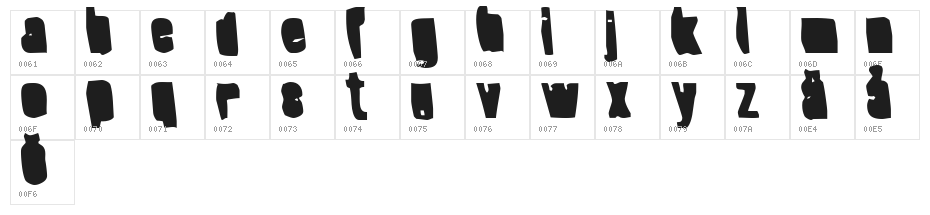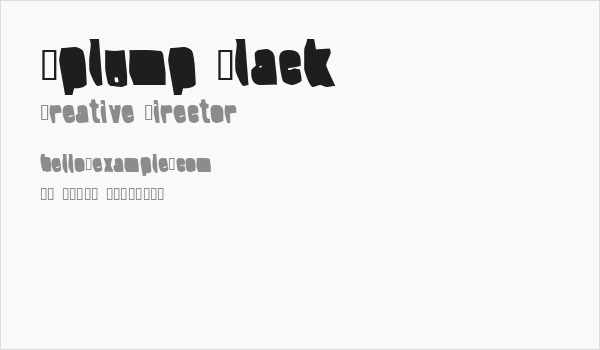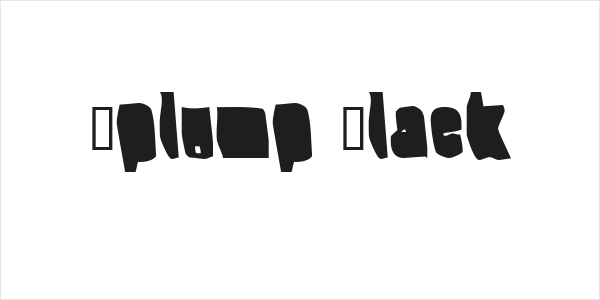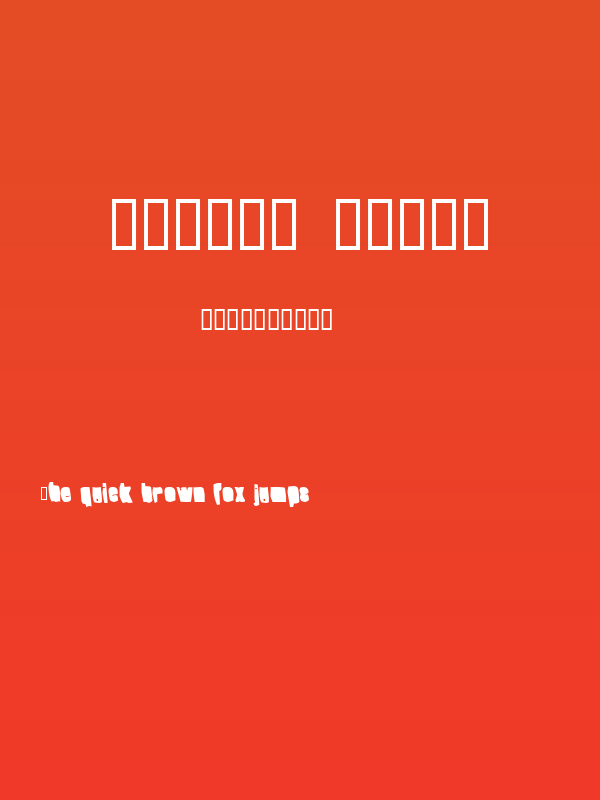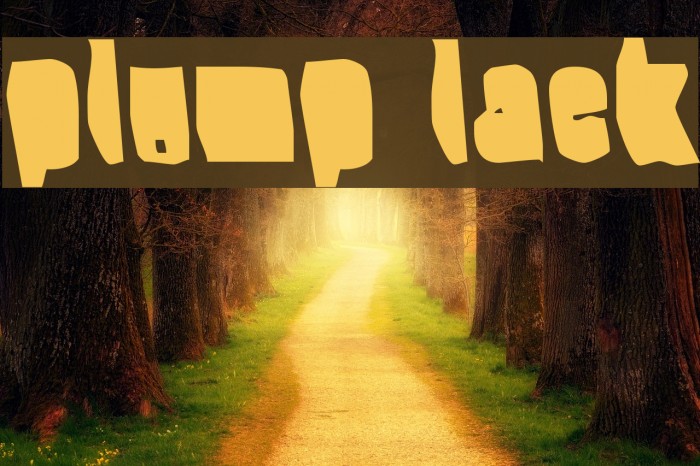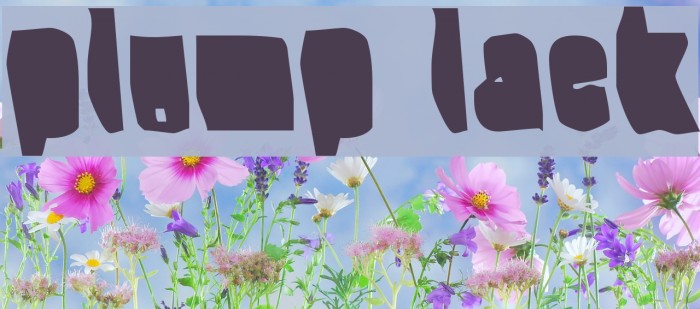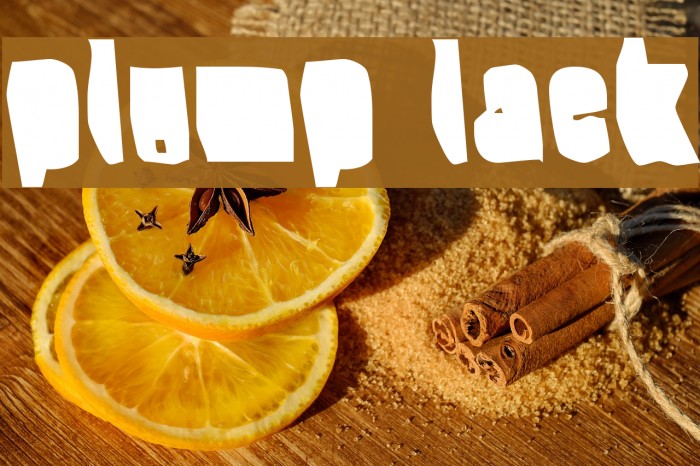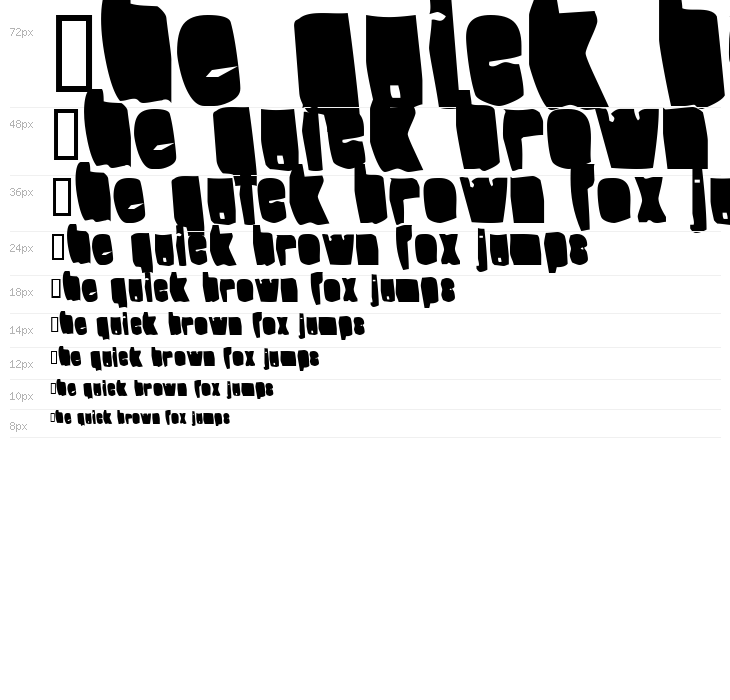
Splump Black Font
Splump Black Description
This font features a bold and playful design with irregular, chunky letterforms that create a sense of movement and energy. The characters are heavily stylized, with exaggerated curves and angles, giving them a unique and artistic appearance. The font's thick strokes and uneven shapes make it stand out, ideal for creative and unconventional projects. Its distinctive style is reminiscent of hand-drawn or crafted lettering, adding a personal and informal touch to any design.
| Proposed Projects | Ideal for posters, album covers, children's books, and creative branding projects. |